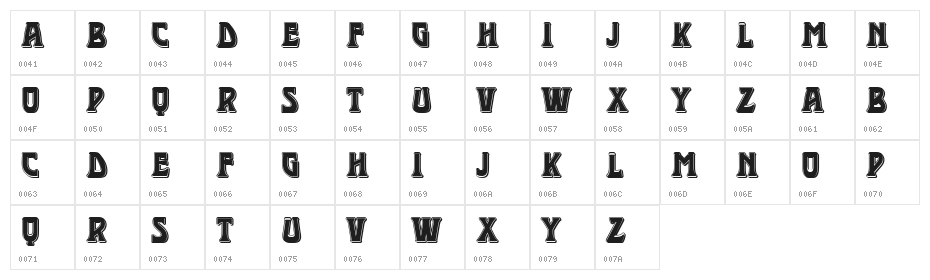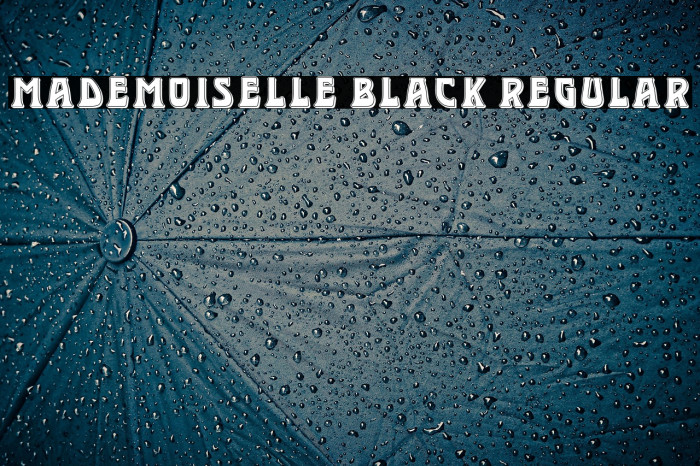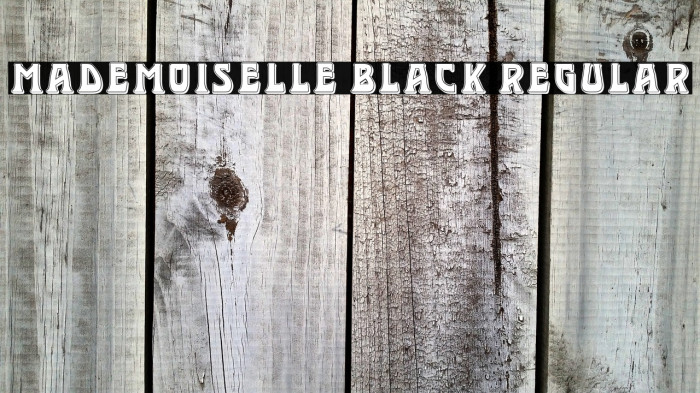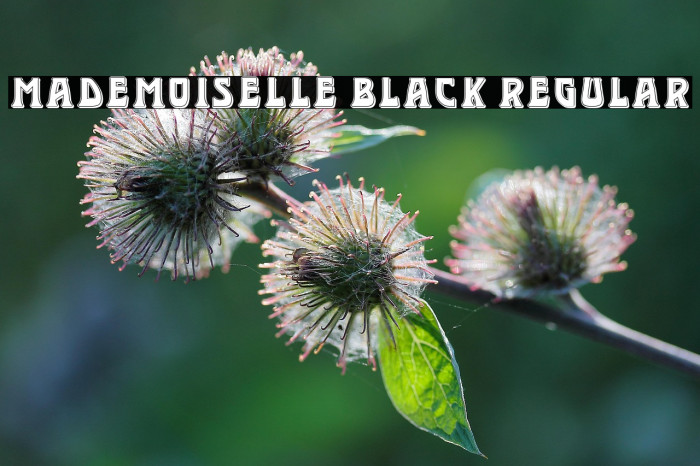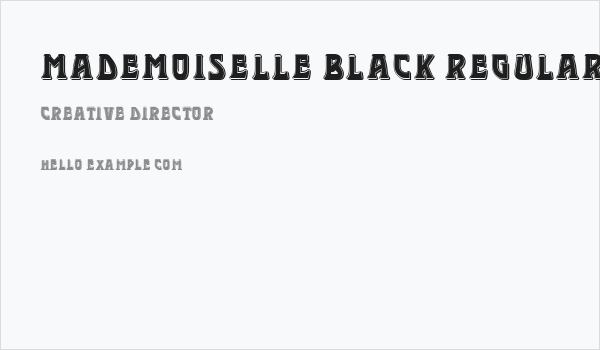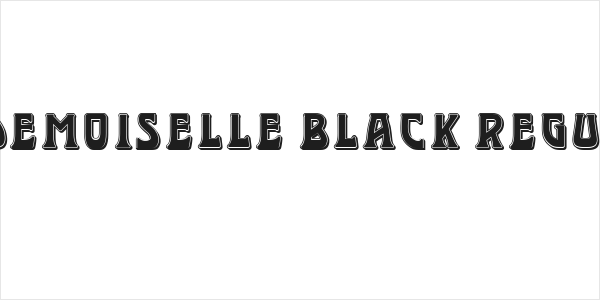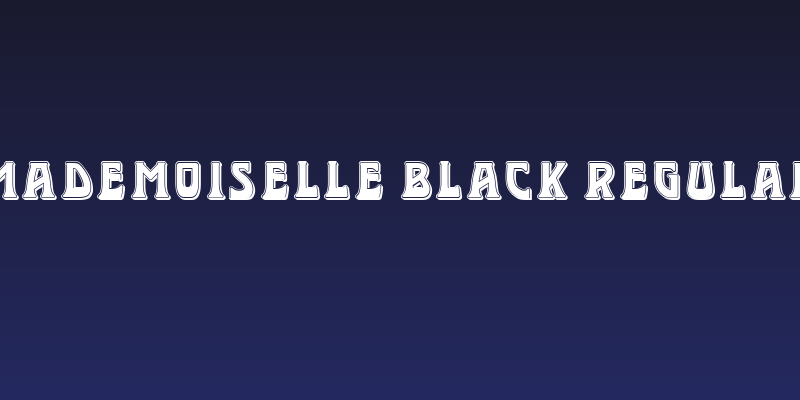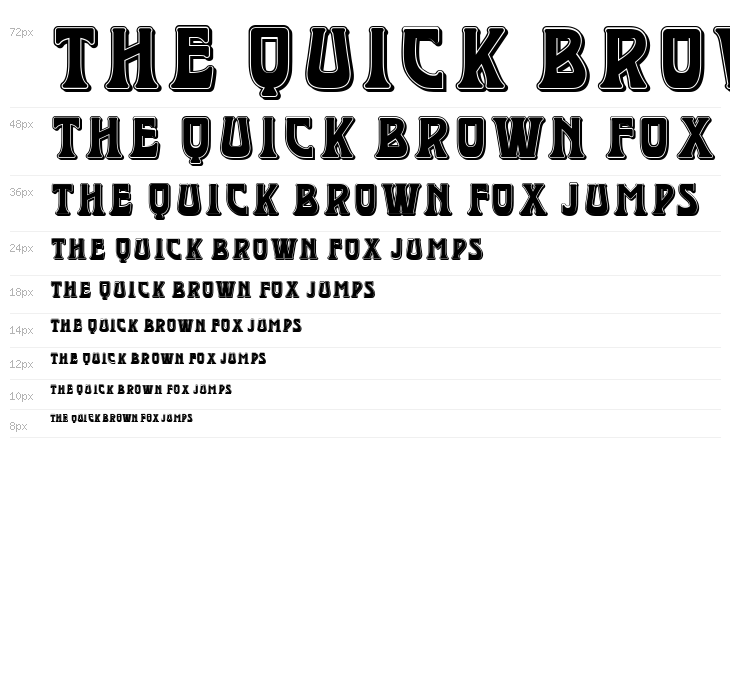
Mademoiselle Black Regular Font
Mademoiselle Black Regular Description
This font features a bold and striking design with a strong presence. Each character is outlined with a thick black border, giving it a three-dimensional effect. The letters are slightly condensed, with a unique blend of sharp and rounded edges, creating a dynamic and eye-catching appearance. The uppercase letters are particularly prominent, making them ideal for attention-grabbing headlines. The overall style is decorative, with a hint of vintage flair, reminiscent of classic poster fonts. The font's boldness and distinct outline make it suitable for projects that require a strong visual impact.
| Overall Style | Vintage, Decorative |
| Proposed Projects | Ideal for posters, logos, branding, and any design requiring a strong visual impact. |